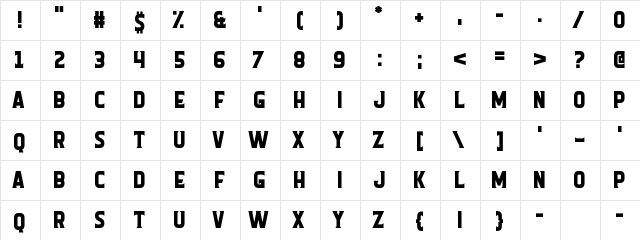
Homunculus Regular
Design Context for Homunculus Typeface
Homunculus offers clean, dependable letterforms without strong stylistic allegiance, making it a practical choice for designers who need flexibility.